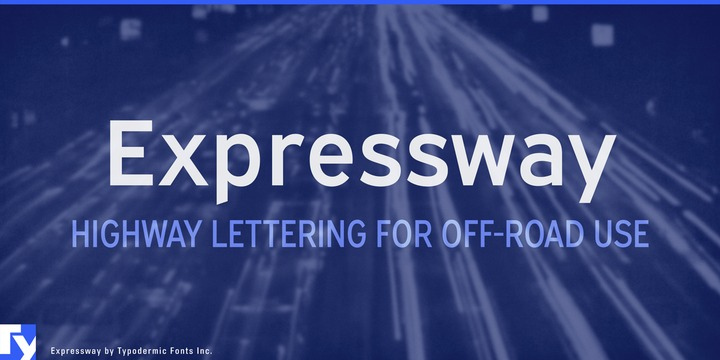
Expressway Font
This dynamic typeface is perfect for automotive branding, transportation companies, highway signage systems, racing event materials, logistics businesses, industrial design projects, urban development presentations, and high-speed marketing campaigns. Expressway Font delivers powerful visual momentum in applications where speed, efficiency, and forward motion are essential brand characteristics.
What makes Expressway Font so exciting is its masterful representation of movement and modern infrastructure aesthetics. The font features bold, streamlined letterforms with aerodynamic qualities that suggest velocity and technological advancement. Each character has been engineered to convey strength and reliability while maintaining exceptional legibility at high speeds and various distances. The typeface's commanding presence captures the essence of modern transportation and urban dynamism, making it perfect for brands that want to communicate progress, efficiency, and cutting-edge innovation through their visual identity.
The Expressway Font includes essential weight variations: Regular, Medium, Bold, and Extra Bold versions. This powerful collection provides designers with the necessary range to create impactful signage systems and establish clear visual hierarchies for transportation and industrial applications. Each weight maintains the font's core characteristics of strength and movement while offering different levels of visual presence for various communication needs.
This high-performance typeface represents the ultimate choice for designers who understand the power of movement and strength in contemporary industrial communication.